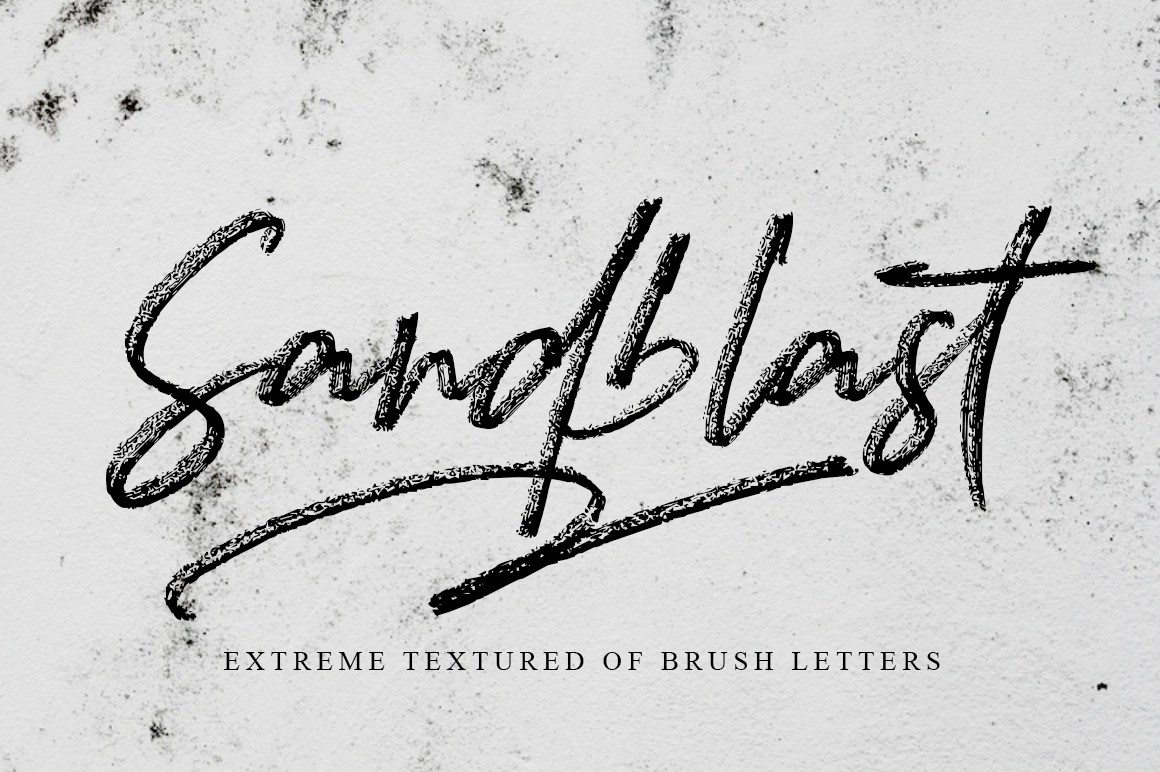
I just launched brush script font in the new collection
Sandblast is a extreme textured for brush script, I design it with real write my hand, I really hope you will enjoy it so much when using this font.
I love using this one with layer masks in Photoshop, really look natural written. Sandblast Script includes over couple ligatures to make everything look totally hand-done.